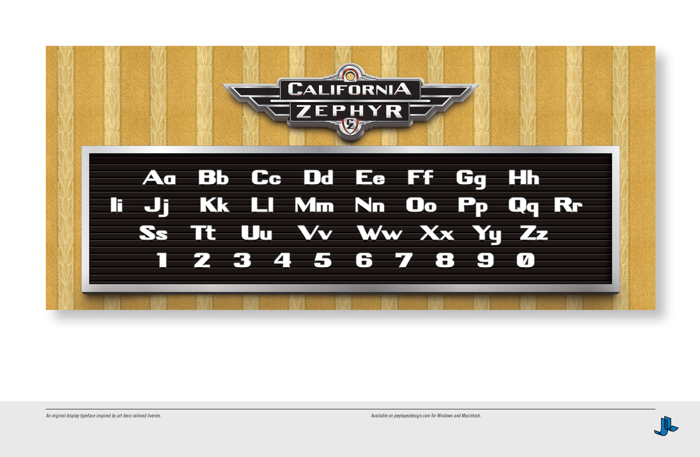
California Zephyr Font
California Zephyr is an original display typeface by Joey Lopez, inspired by art deco railroad liveries.
The inspiration was the California Zephyr that was previously at Disney California Adventure park, a locomotive and cars converted into a restaurant and store - the Art Deco styling as well as it's hand-painted numbers and livery were something I wanted to capture but that I knew already existed as a digital typeface. I wanted to create something a little more legible and general purposed that could be used to convey an Art Deco and a futurist feeling, with a more contemporary weight system.